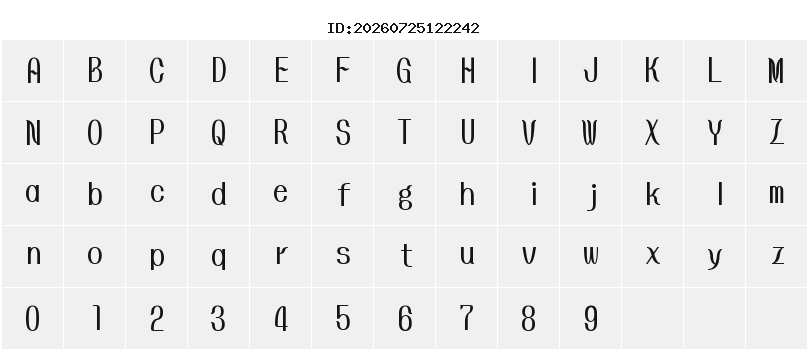
id-nagare1 Preview
• Font Name: id-nagare1
• Full Font Name: id-nagare1
• PostScript Name: id-nagare1
About id-nagare1.ttf
id-nagare1.ttf is a modern, elegant sans-serif font designed for ultimate readability and visual harmony. Perfect for branding, headlines, web design, and print materials.